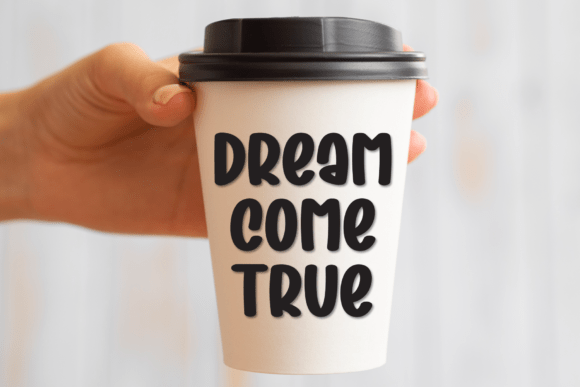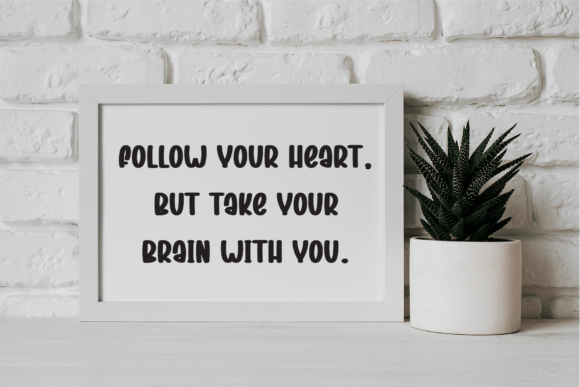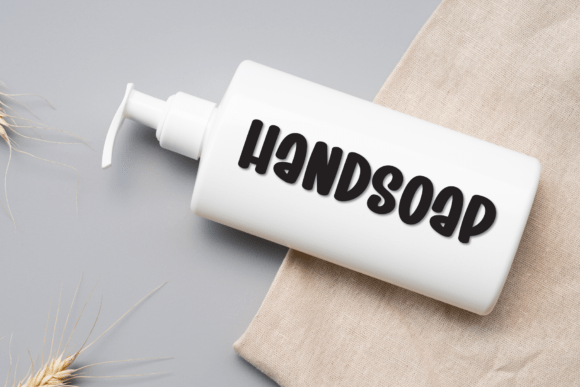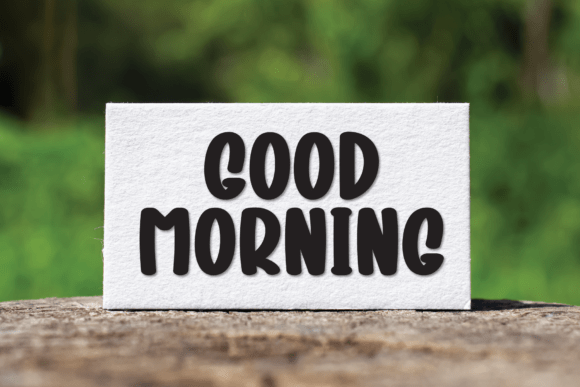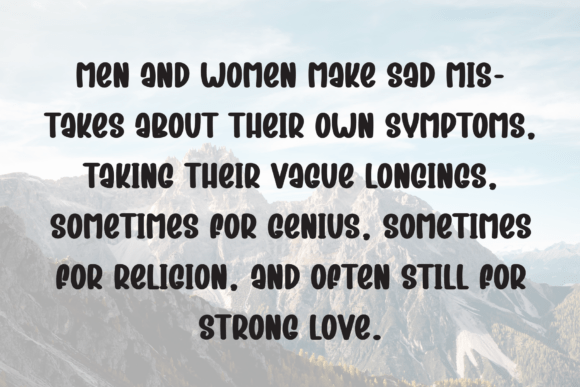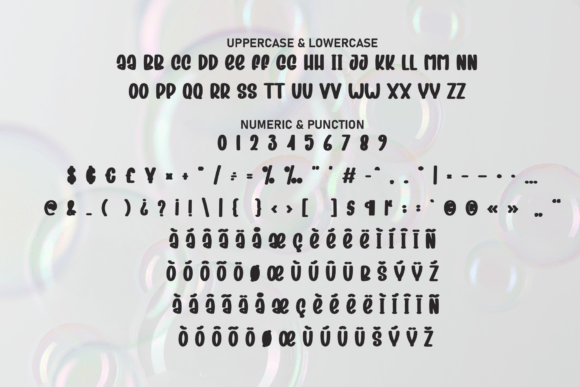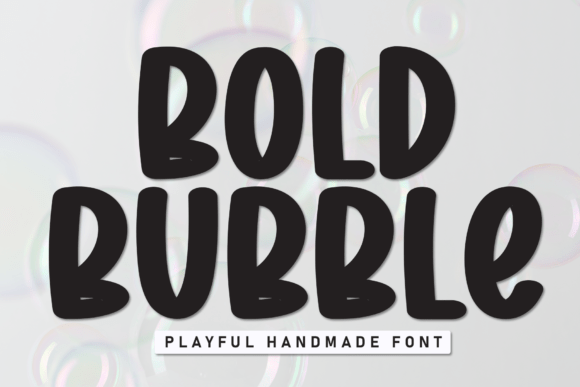
Introducing Bold Bubble Font: The Perfect Blend of Simplicity and Friendliness
In the world of typography, fonts play a crucial role in conveying the tone and personality of a brand or design. For designers and crafters looking for a font that combines simplicity with a friendly, approachable vibe, Bold Bubble Font is an excellent choice. This casual and neat display font is designed to capture the essence of modern handwritten typography with a polished finish, making it ideal for a wide range of applications.
Clean Lines, Balanced Letterforms, and Subtle Rounded Edges
One of the standout features of Bold Bubble Font is its clean lines and balanced letterforms. The font’s design is characterized by a crisp structure that exudes clarity and sophistication. The subtle rounded edges add a touch of warmth and friendliness, making it perfect for designs that require a approachable tone. Whether you’re working on a branding project, creating headlines, designing packaging, or crafting digital content, Bold Bubble Font is sure to deliver.
Modern Handwritten Typography with a Polished Finish
Bold Bubble Font is inspired by modern handwritten typography, but with a polished finish that sets it apart from more traditional handwritten fonts. The font’s design is carefully crafted to evoke a sense of warmth and invitation, making it perfect for designs that require a personal touch. The polished finish also ensures that the font remains legible and easy to read, even at smaller sizes.
Ideal for Branding, Headlines, Packaging, and Digital Content
Bold Bubble Font is a versatile font that can be used in a wide range of applications. Its clean and crisp design makes it perfect for branding projects, where it’s essential to create a strong and recognizable identity. The font’s friendly and approachable vibe also makes it ideal for headlines, packaging, and digital content, where it’s essential to grab the reader’s attention and convey a sense of warmth and invitation.
Adding a Warm and Inviting Touch to Any Design
One of the key benefits of Bold Bubble Font is its ability to add a warm and inviting touch to any design. The font’s friendly and approachable vibe makes it perfect for designs that require a personal touch, such as branding projects, packaging, and digital content. The font’s clean and crisp design also ensures that it remains legible and easy to read, even at smaller sizes.
Versatility and Legibility
Bold Bubble Font is designed to be versatile and legible, making it perfect for a wide range of applications. The font’s clean and crisp design ensures that it remains easy to read, even at smaller sizes. The font’s friendly and approachable vibe also makes it perfect for designs that require a personal touch.
Key Features of Bold Bubble Font
- Clean lines and balanced letterforms
- Subtle rounded edges for a friendly and approachable vibe
- Modern handwritten typography with a polished finish
- Ideal for branding, headlines, packaging, and digital content
- Versatile and legible design
In conclusion, Bold Bubble Font is an excellent choice for designers and crafters looking for a font that combines simplicity with a friendly, approachable vibe. Its clean lines, balanced letterforms, and subtle rounded edges make it perfect for a wide range of applications, from branding and headlines to packaging and digital content. With its crisp structure and versatile style, Bold Bubble Font delivers clarity and charm in equal measure.
Whether you’re working on a personal project or a client’s design brief, Bold Bubble Font is sure to impress. Its warm and inviting tone makes it perfect for designs that require a personal touch, while its clean and crisp design ensures that it remains legible and easy to read. So why not give Bold Bubble Font a try and see how it can elevate your designs to the next level?